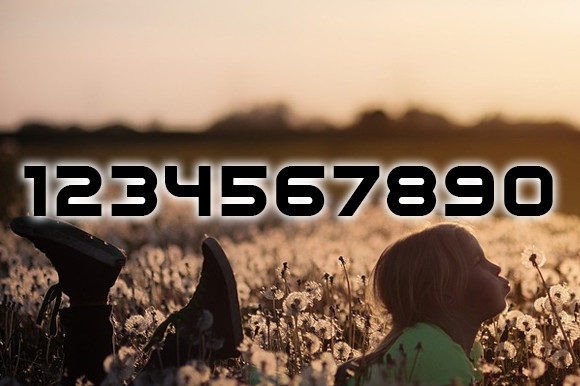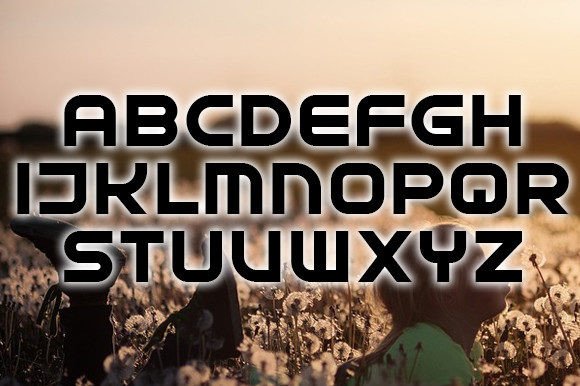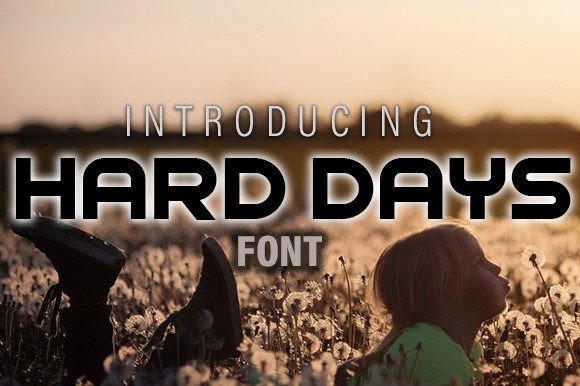
Introducing Hard Days Font: The Ultimate Display Typeface for Your Designs
Are you tired of using the same old fonts in your designs? Look no further! Hard Days Font is an awesome display typeface that will add a touch of uniqueness and style to any of your creations. Whether you’re working on posters, flyers, t-shirts, or any other design project, Hard Days Font is the perfect choice.
What Makes Hard Days Font Stand Out?
Hard Days Font is a carefully crafted display typeface that exudes a sense of ruggedness and sophistication. Its bold and edgy design makes it perfect for creating eye-catching headlines, titles, and logos. The font’s unique character set and stylized letterforms will add a touch of personality to your designs, setting them apart from the rest.
Key Features of Hard Days Font
- Bold and Edgy Design: Hard Days Font features a bold and edgy design that will make your designs stand out.
- Unique Character Set: The font comes with a unique character set, including stylized letterforms and punctuation marks.
- High-Quality Vector Graphics: Hard Days Font is designed as high-quality vector graphics, ensuring crisp and clear rendering at any size.
Hard Days Font is versatile and can be used on a wide range of design projects, including:
- Posters: Create eye-catching posters with bold headlines and titles using Hard Days Font.
- Flyers: Add a touch of style to your flyers with Hard Days Font’s unique character set.
- T-Shirts: Design custom t-shirts with Hard Days Font’s bold and edgy design.
- Logos and Branding: Use Hard Days Font to create unique and memorable logos and branding materials.
Why Choose Hard Days Font?
With so many fonts available, why choose Hard Days Font? Here are just a few reasons:
- Unique Design: Hard Days Font features a unique design that will set your designs apart from the rest.
- High-Quality: The font is designed as high-quality vector graphics, ensuring crisp and clear rendering at any size.
Tips for Using Hard Days Font
Here are a few tips for using Hard Days Font in your designs:
- Use it as a Headline Font: Hard Days Font is perfect for use as a headline font, adding a touch of boldness and style to your designs.
- Experiment with Colors: Try using Hard Days Font with different colors and textures to add depth and interest to your designs.
- Pair it with Other Fonts: Hard Days Font can be paired with other fonts to create a unique and visually appealing design.